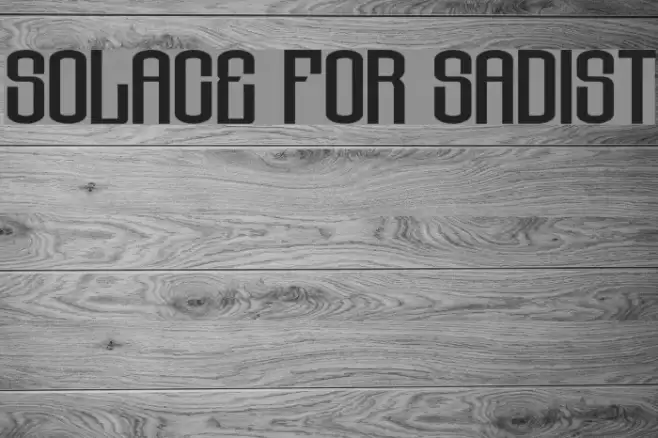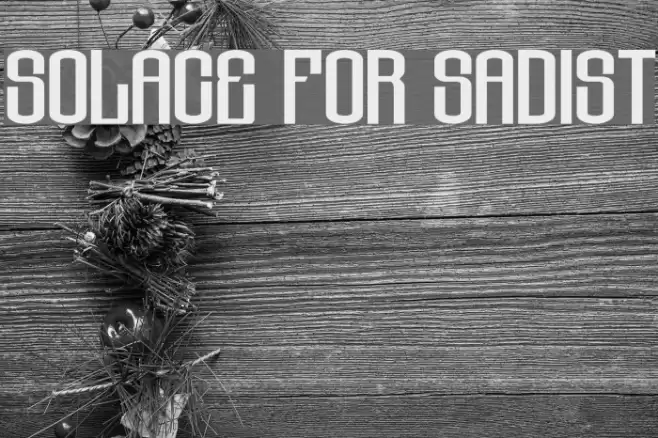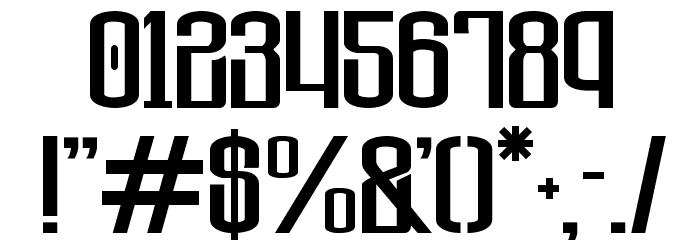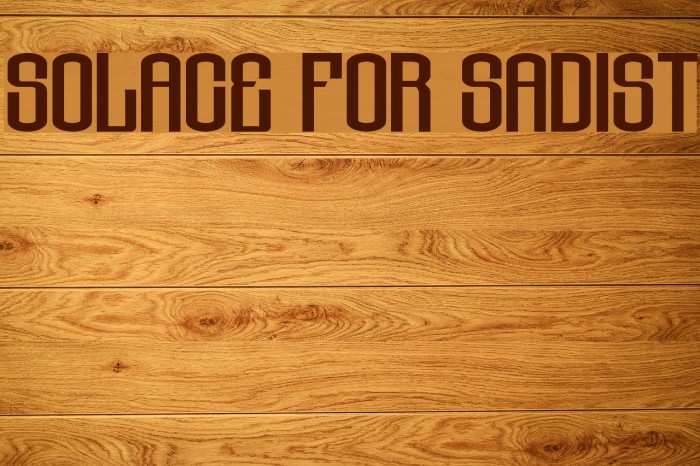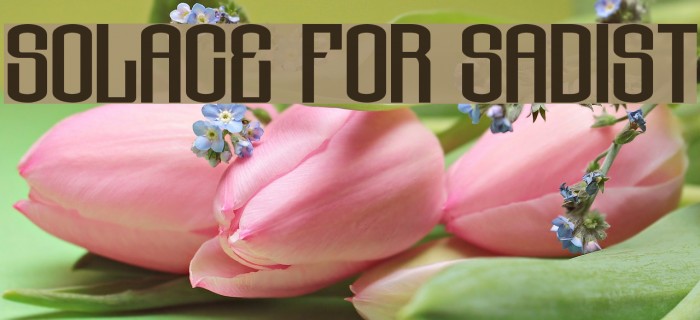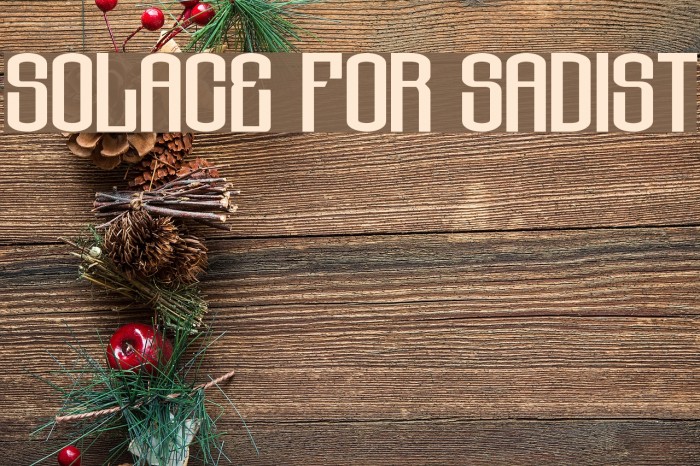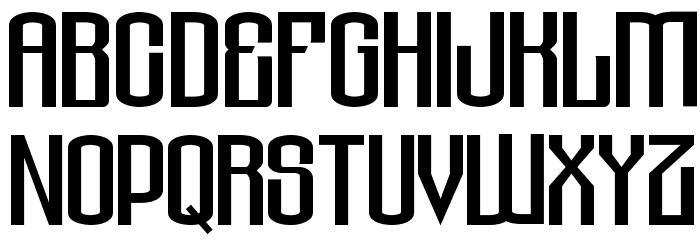
Solace for Sadist Font
Solace for Sadist Description
This font features a bold and modern design with a geometric structure. The characters are tall and narrow, giving it a condensed appearance. The strokes are consistent in width, providing a uniform look across all letters and numbers. The uppercase and lowercase letters maintain a similar height, enhancing the font's cohesive style. The special characters are designed to match the overall aesthetic, making it suitable for various design applications. Its clean lines and sharp edges contribute to a contemporary and professional feel.
A bold, modern font with a geometric and condensed design from Uncategorized fonts.
- Proposed Projects: Ideal for branding, posters, and headlines where a modern and impactful look is desired.